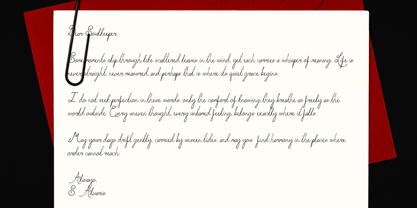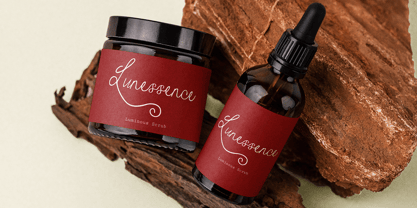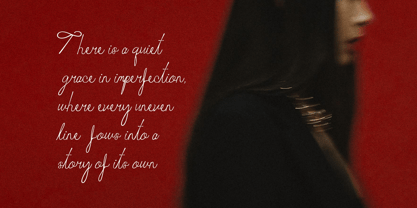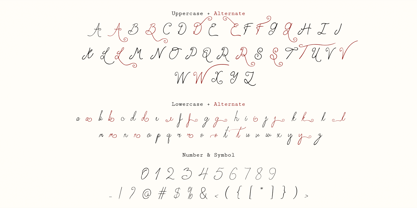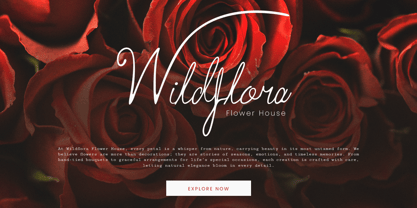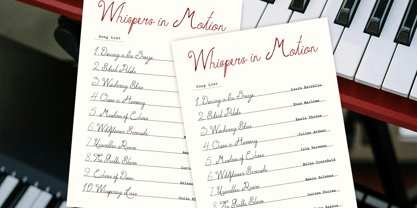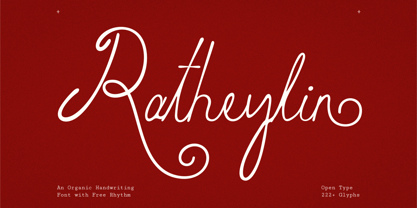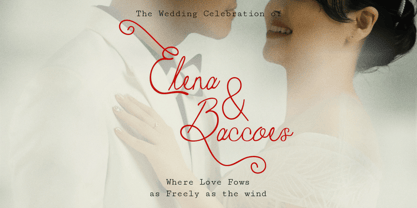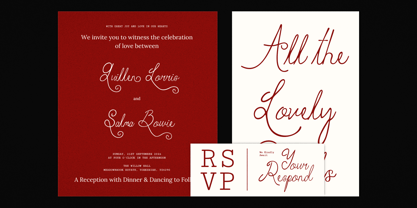
Ratheylin
by Sronstudio
The Ratheylin Font Family was designed by Muhamad Yusron Billah and published by Sronstudio. Ratheylin contains 1 styles. More about this family
Ratheylin is an organic handwriting font that captures the natural beauty and warmth of hand-drawn lettering. With its smooth, flowing strokes and imperfect charm, this font adds a personal and authentic touch to any design. Perfect for branding, quotes, invitations, packaging, and social media, Ratheylin brings a sense of creativity and sincerity to your projects. What’s Included: - Upper & Lowercase alternates - Uppercase & lowercase letters - Numerals & punctuation - PUA encoded for easy access - Multilingual support - Works seamlessly on Mac & Windows Thank you very much 🙂
Designers: Muhamad Yusron Billah
Foundry: Sronstudio